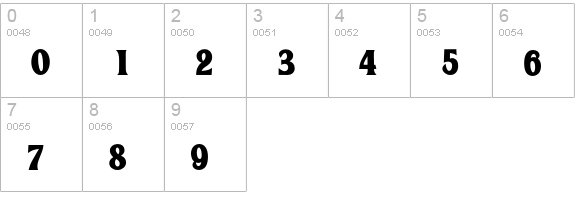
Introspect-Bold Font Details
Introspect-Bold is a strong, high-contrast variant in the Introspect typeface family \xE2\x80\x94 well suited to headlines, attention-grabbing titles, and strong calls-to-action.
Introspect-Bold font is a stunning display typeface that exudes elegance and sophistication. With its bold and commanding presence, it captures attention and leaves a lasting impression. Crafted with meticulous attention to detail, this font is perfect for headlines, titles, and branding projects that require a touch of class. The Introspect-Bold font features strong, clean lines and a unique geometric structure, giving it a modern and contemporary feel. Its bold weight adds impact and ensures legibility even at smaller sizes, making it versatile for various design applications. Whether you're designing a sleek logo, a striking poster, or a stylish website, this font will effortlessly elevate your project to new heights. One of the most appealing aspects of Introspect-Bold font is its versatility. It can seamlessly adapt to any design style, from minimalist to luxurious, and everything in between. The meticulously designed letterforms offer a harmonious balance between elegance and readability, making it suitable for both print and digital design. And the best part? Introspect-Bold font is available for free at FontsMarket.com. You can easily download and use this exceptional typeface in your personal and commercial projects without any restrictions. The accessibility of this font allows designers, creatives, and typographers to unleash their creativity without limitations. So, if you're looking for a bold and captivating font that will make your designs stand out, Introspect-Bold is the perfect choice. Download it for free at FontsMarket.com and experience the unlimited possibilities this font has to offer. Let your design projects shine with the timeless beauty and sophistication of Introspect-Bold font.